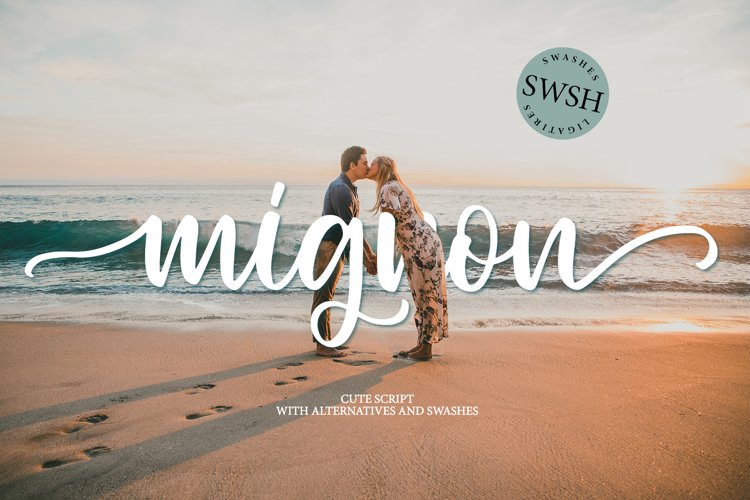
MIGNON handwritten font with swashes
My new font is beautiful and smooth modern calligraphy with a straight baseline. And I also added a separate font with cute swashes at the beginning and at the end. You do not need special software, everything works simply and clearly :)
Mignon will look beautiful on Christmas and holiday invitations, wedding invites and stationery, logos, and more. I love using it for emphasis words and pairing it with serifs